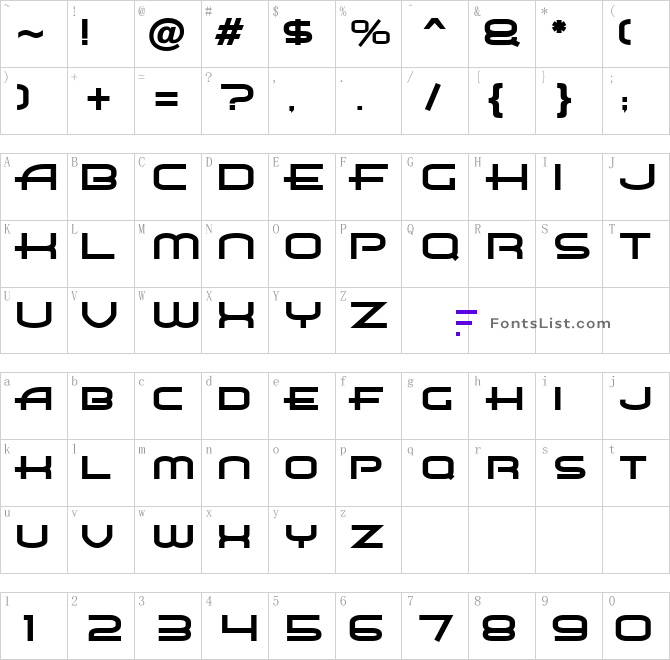
- Font Name:Air Flow BTN
- Subfamily:Air Flow BTN Bold
- Full Name:Air Flow BTN Bold
Air-Flow-BTN-Bold.ttf is a very beautiful artistic font, Air-Flow-BTN-Bold.ttf is widely used in the design and printing of various books and pictures,Air-Flow-BTN-Bold.ttf has a strong visual impact,Air-Flow-BTN-Bold.ttf is a commonly used font in newspapers, magazines and books, and is used in posters, e-commerce Poster design, store design, logo design, font design and other fields.Air-Flow-BTN-Bold.